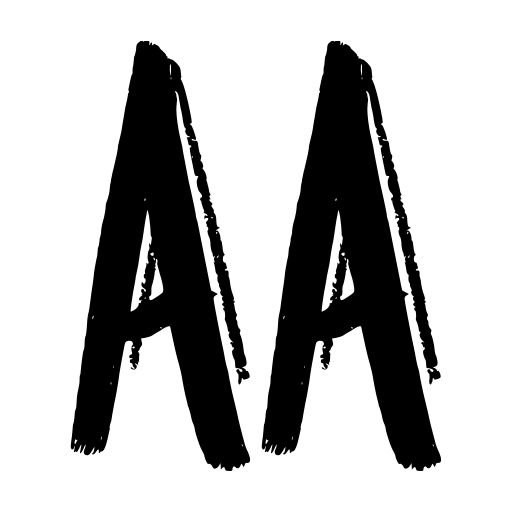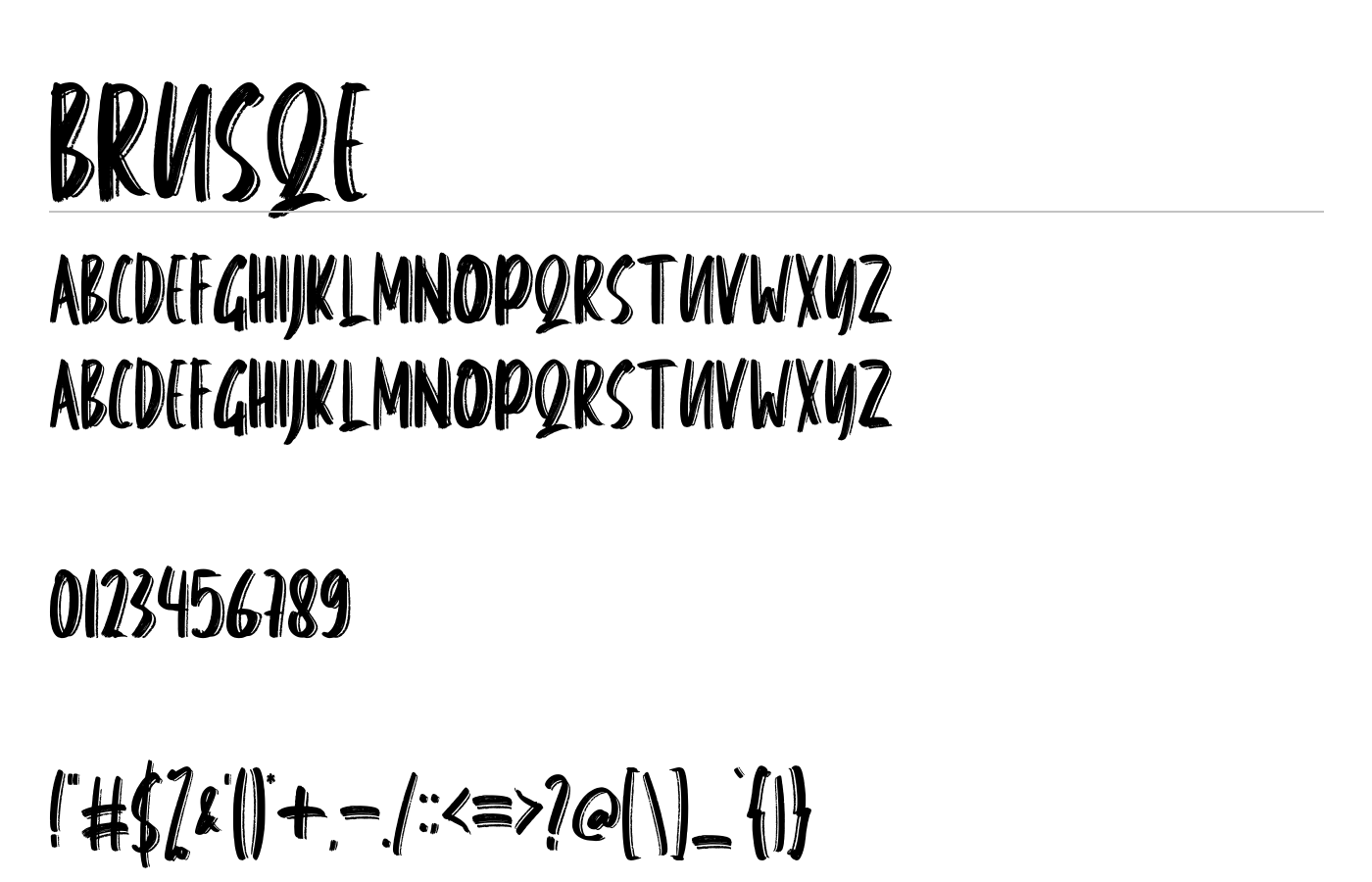
Brusqe is an expressive, hand-brushed sans serif font characterized by its bold, textured strokes and slightly condensed letterforms. With its high contrast and rough, organic edges, this font conveys a raw, artistic, and energetic vibe, making it a great choice for creative branding, posters, and headlines seeking a handcrafted, dynamic feel. Its casual yet impactful style works well for designs that want to stand out with a personal and edgy touch.
Brusqe Font
About Brusqe Font